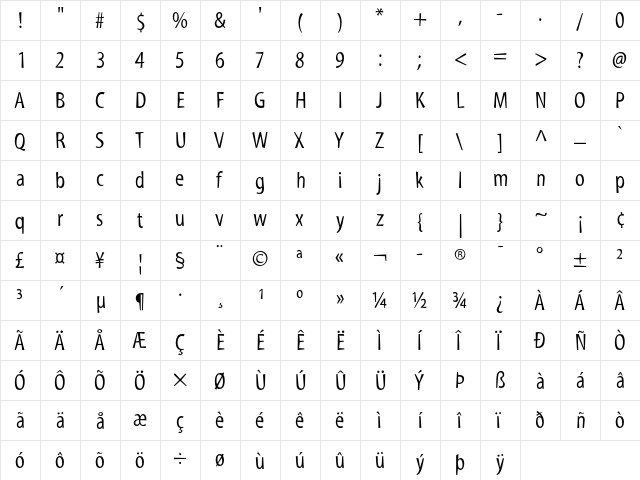
Myriad Tilt
Design Context for Myriad Typeface
Myriad takes a measured approach to typography — its balanced proportions and neutral character make it a reliable workhorse for both digital and print work.
Pro Tip: Use Myriad in both headline and body roles to test its range before committing to a single application.